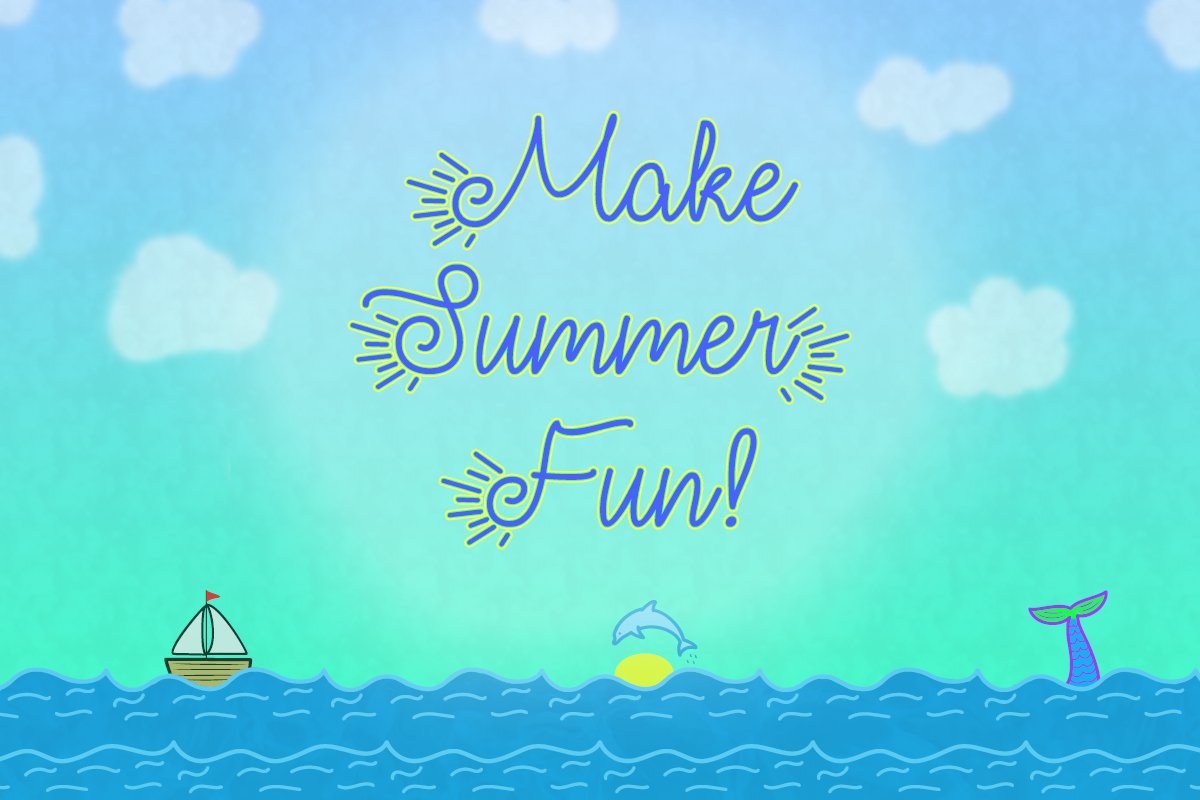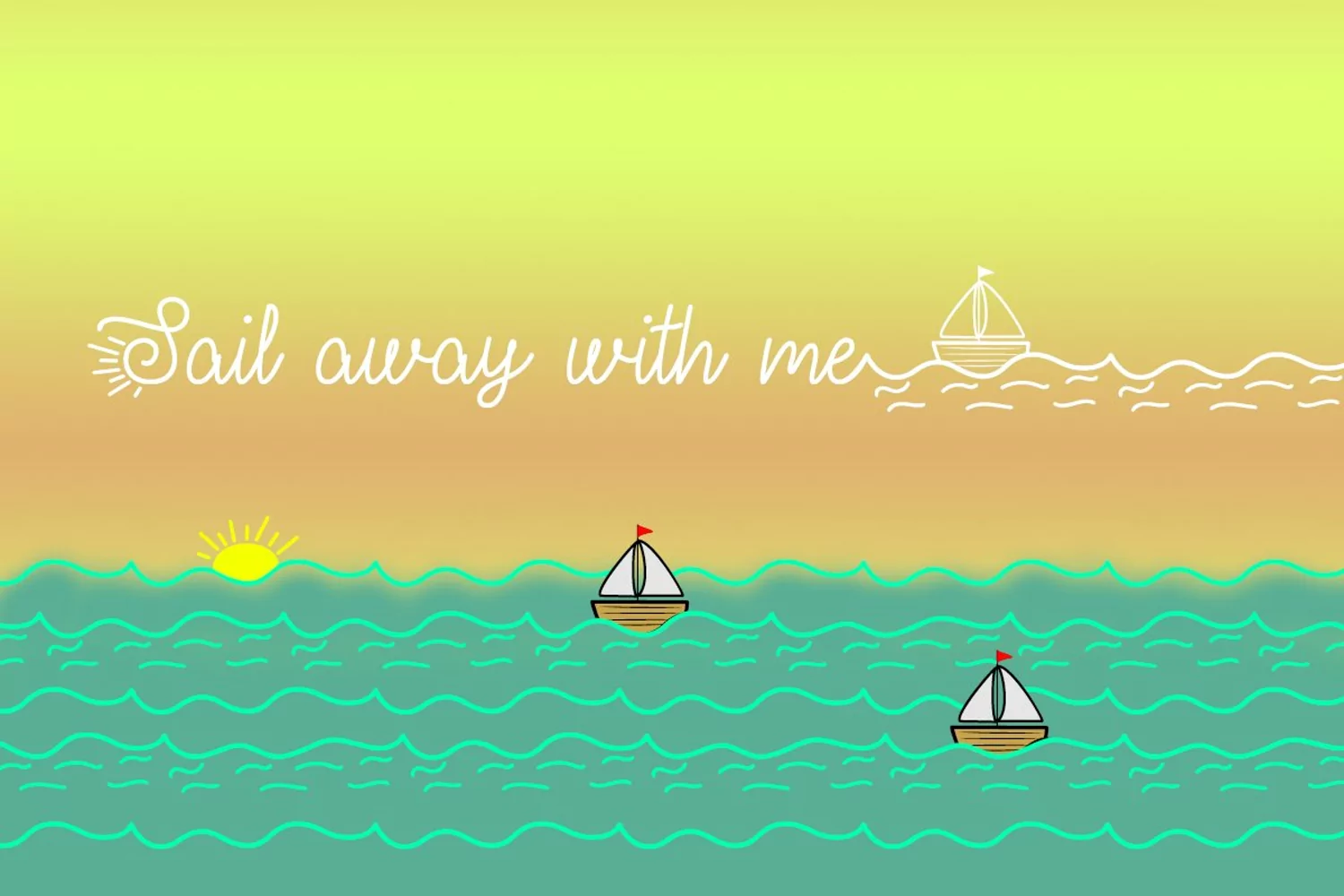
Make Summer Fun is a cursive typeface packed with beach themed symbols. Great for creating Summer projects!
- 605 glyphs (including uppercase, lowercase, numbers, and punctuation)
- Lots of extra glyphs (special summer symbols and ligatures)
- Fully PUA encoded!
- Lots of language support (covers most European languages + Vietnamese) and I can add more language support at request!